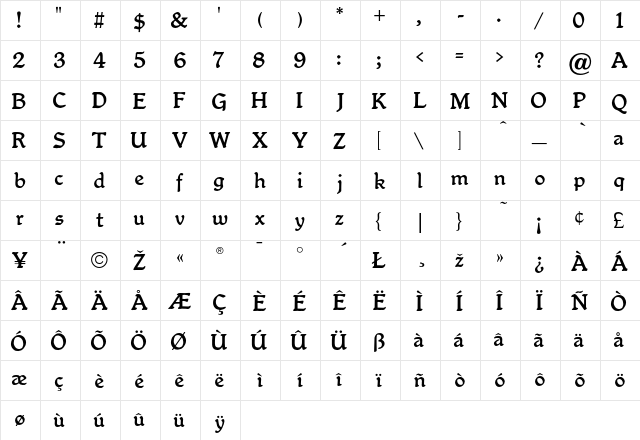
Motto Regular Font Preview
Motto Regular
Motto Regular Font Details
Design Context for Motto Typeface
Motto takes a measured approach to typography — its balanced proportions and neutral character make it a reliable workhorse for both digital and print work.